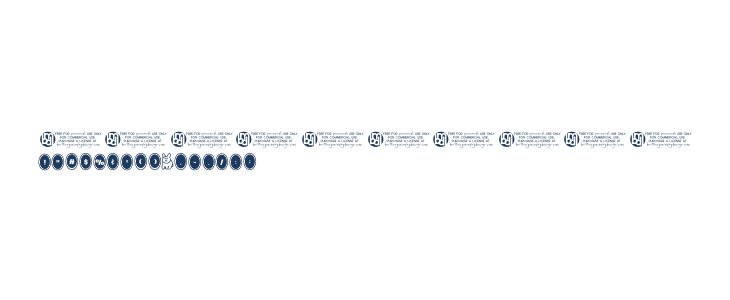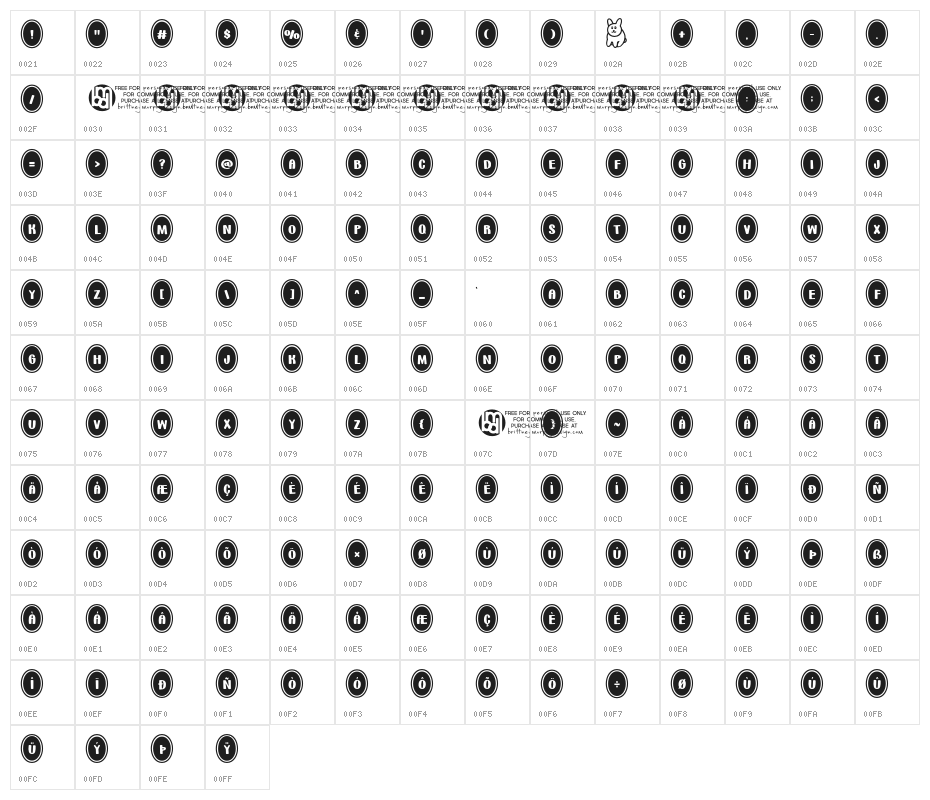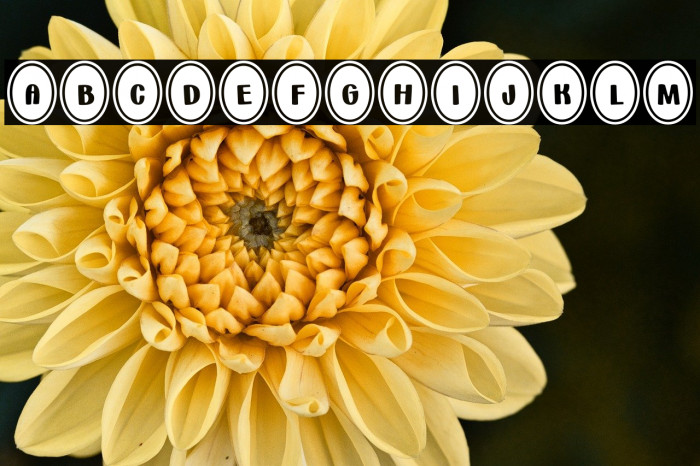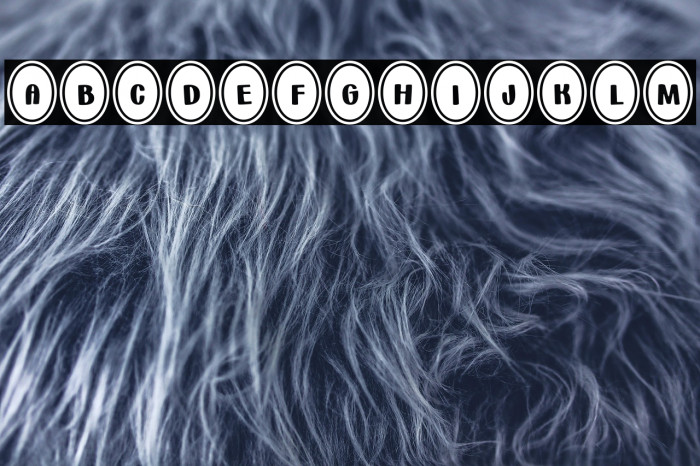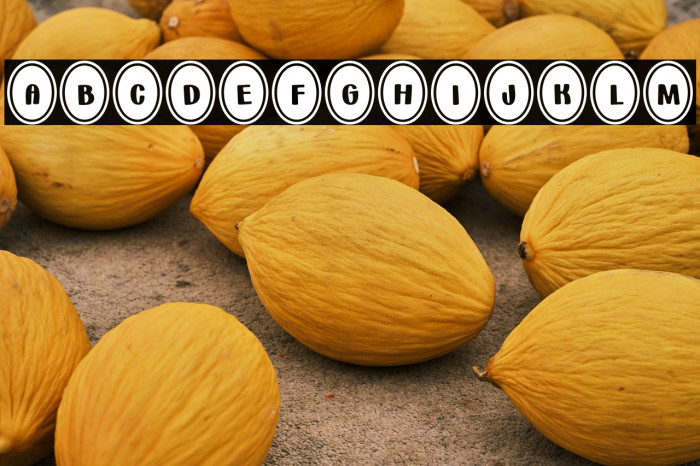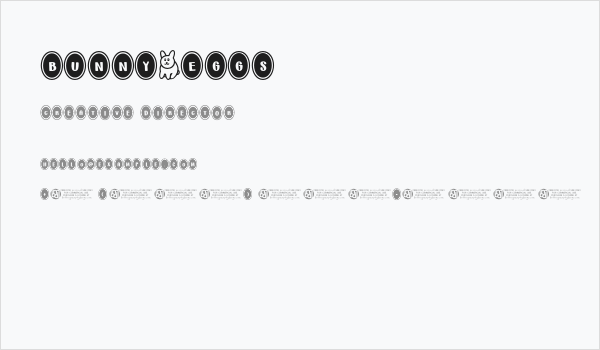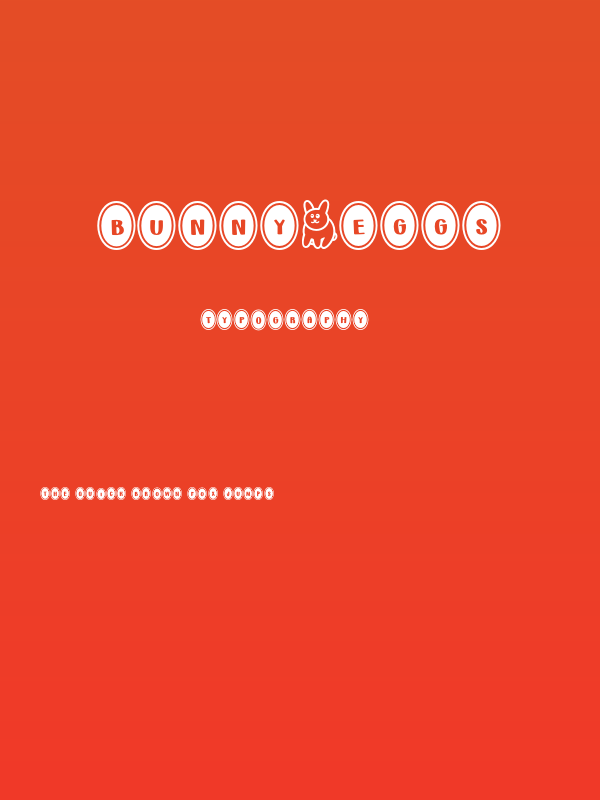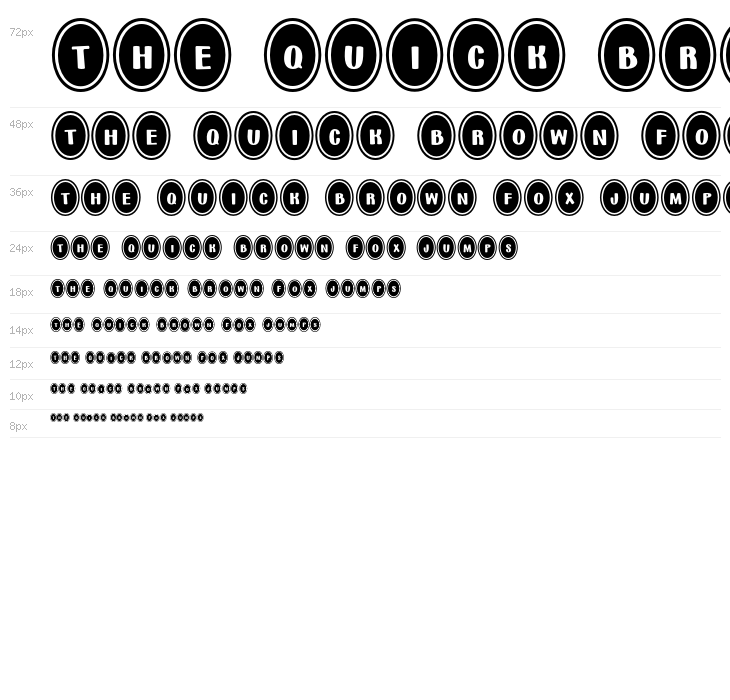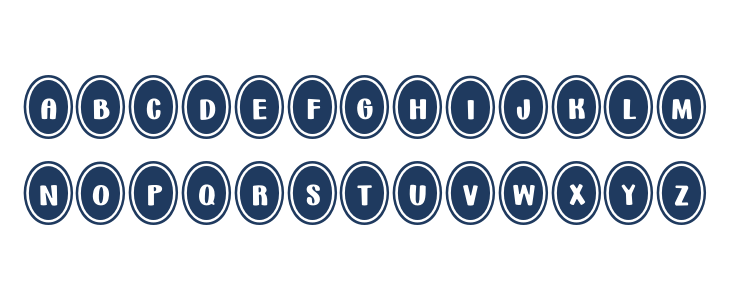
Bunny*Eggs Font
Bunny*Eggs Description
This playful and decorative font features characters enclosed within egg-shaped ovals, each with a bold, black outline. The letters are uppercase and lowercase, with a consistent, rounded style that adds a whimsical touch. The font includes numbers and a selection of special characters, maintaining the same enclosed design. Its unique presentation makes it ideal for festive or themed projects, particularly those related to Easter or springtime events. The consistent spacing and bold outlines ensure readability while maintaining a fun and engaging appearance.
| Use Case | Headlines, Logos, Themed Events |
| Proposed Projects | Ideal for Easter-themed designs, children's books, greeting cards, and playful branding. |